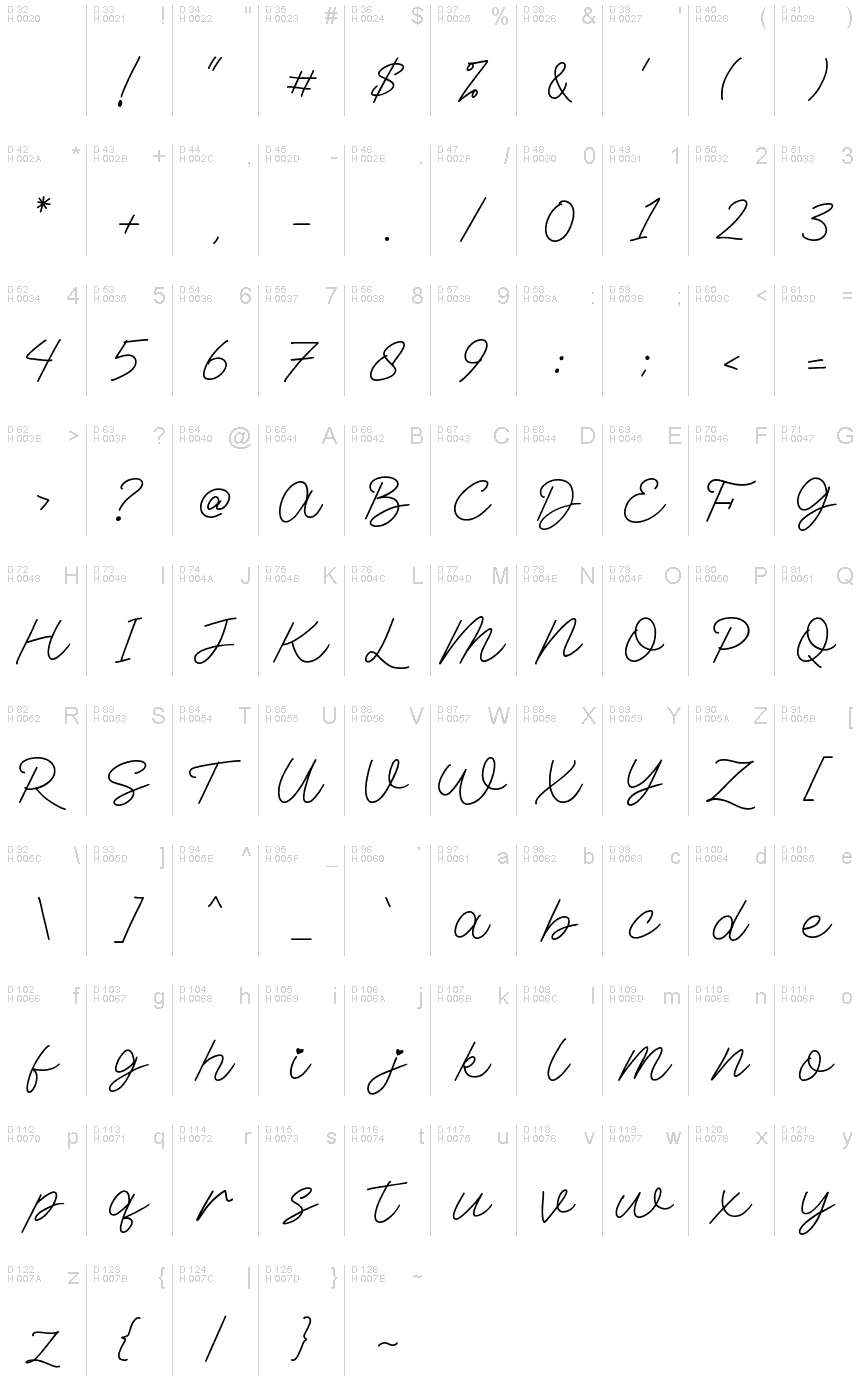
Marnilla Signature
Marnilla Signature, crafted by the talented AEN Creative Studio, is a breathtaking handwritten font that exudes elegance and sophistication. Its light weight adds a delicate touch to any project, making it perfect for wedding invitations, luxury branding, or refined packaging designs. Whether you're seeking to create a romantic vibe or elevate your brand's image, Marnilla Signature will effortlessly captivate your audience with its graceful strokes and timeless appeal. Let this enchanting font be the signature style of your next creative endeavor.